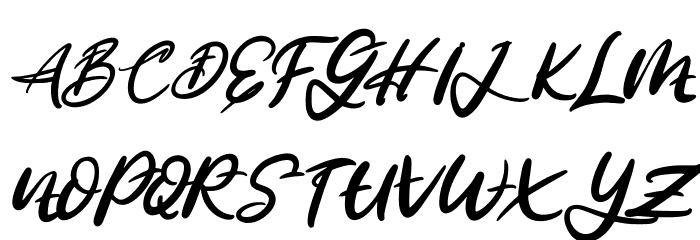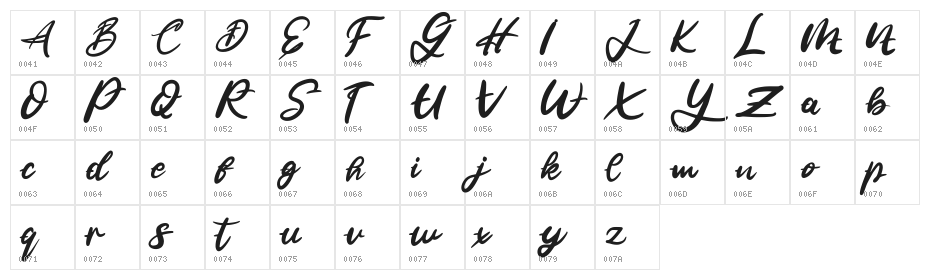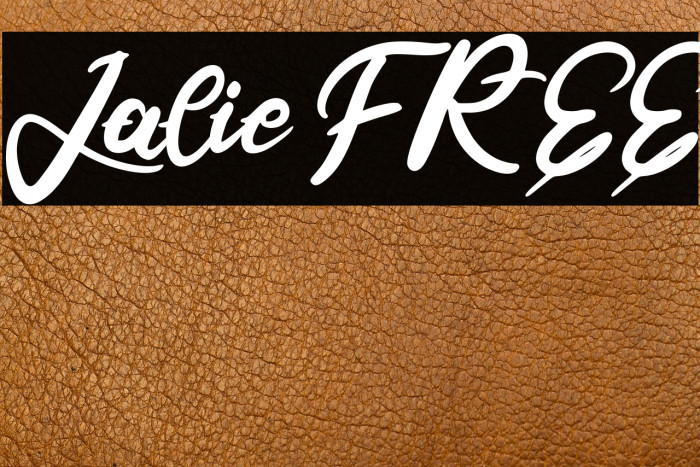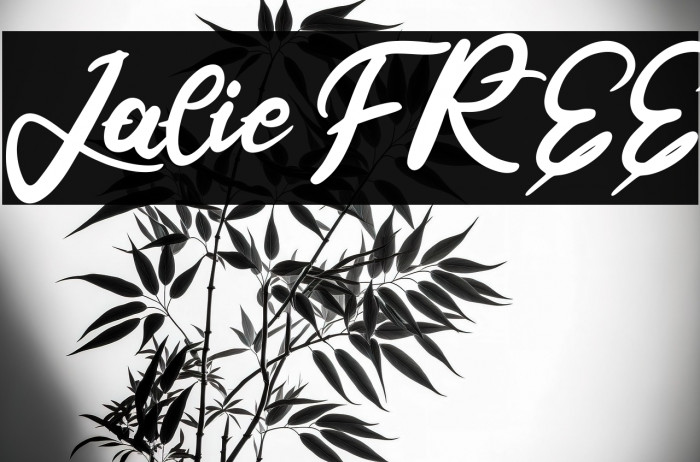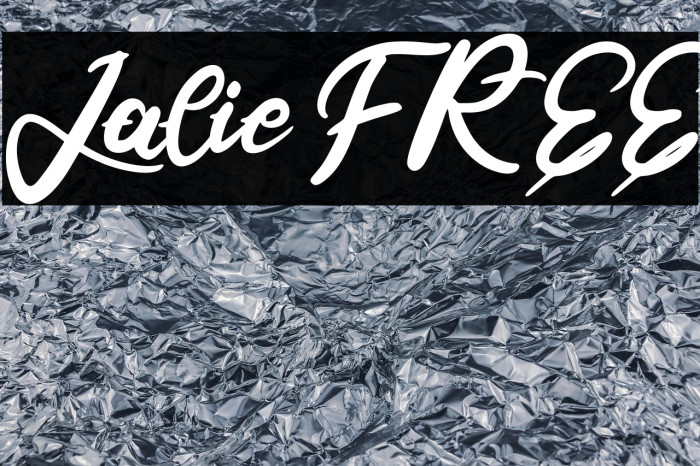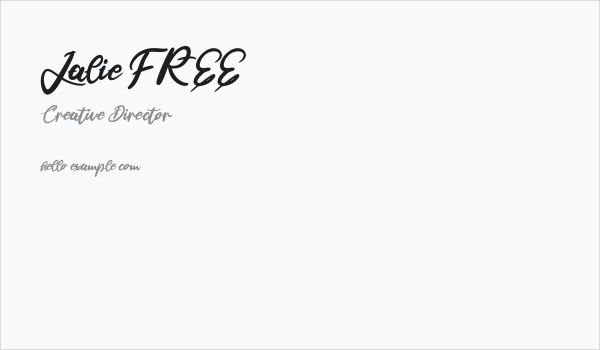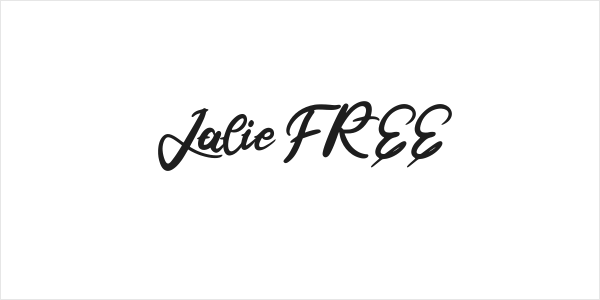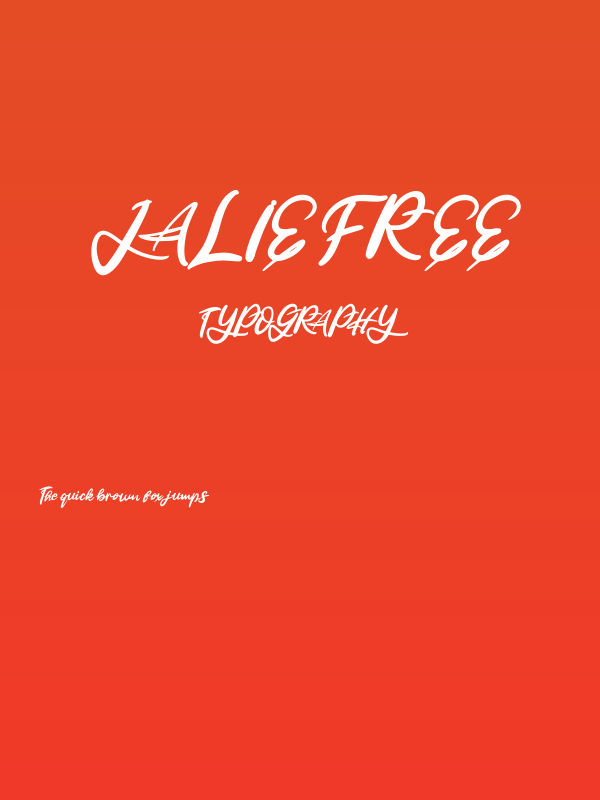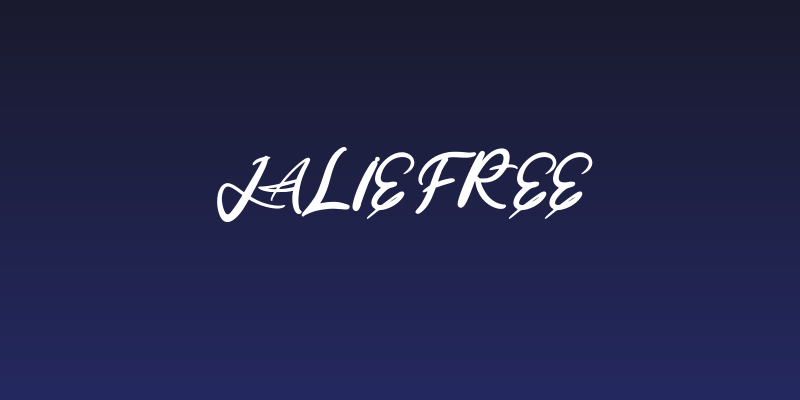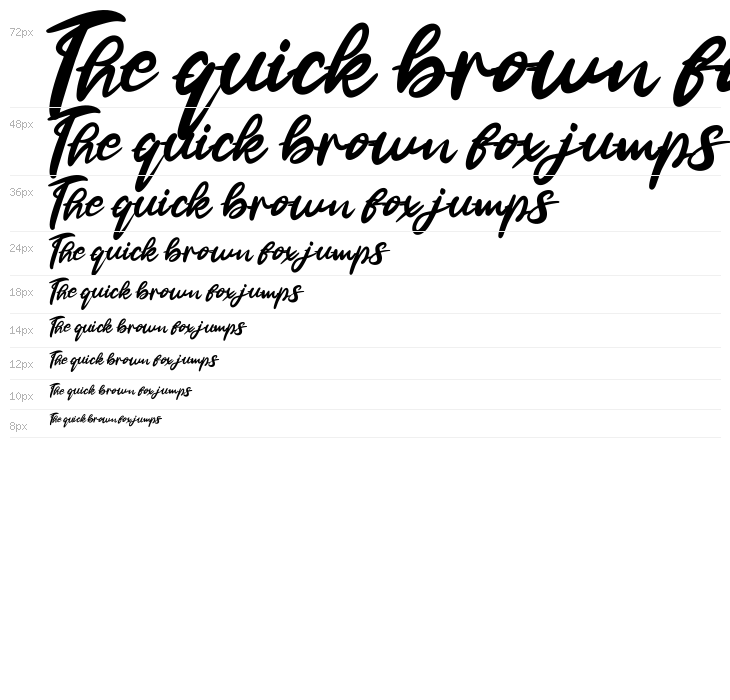
Jalie FREE Font
Jalie FREE Description
This font features a dynamic and fluid script style, characterized by its elegant, flowing curves and connected letterforms. The uppercase letters exhibit a sense of movement and grace, with each character seamlessly transitioning into the next. The lowercase letters maintain this fluidity, offering a cohesive and harmonious appearance. The font's bold strokes and high contrast between thick and thin lines enhance its readability while adding a touch of sophistication. The overall style is reminiscent of traditional calligraphy, yet it maintains a modern flair, making it suitable for a variety of design applications.
| Proposed Projects | Ideal for wedding invitations, branding, logo design, and elegant packaging. |